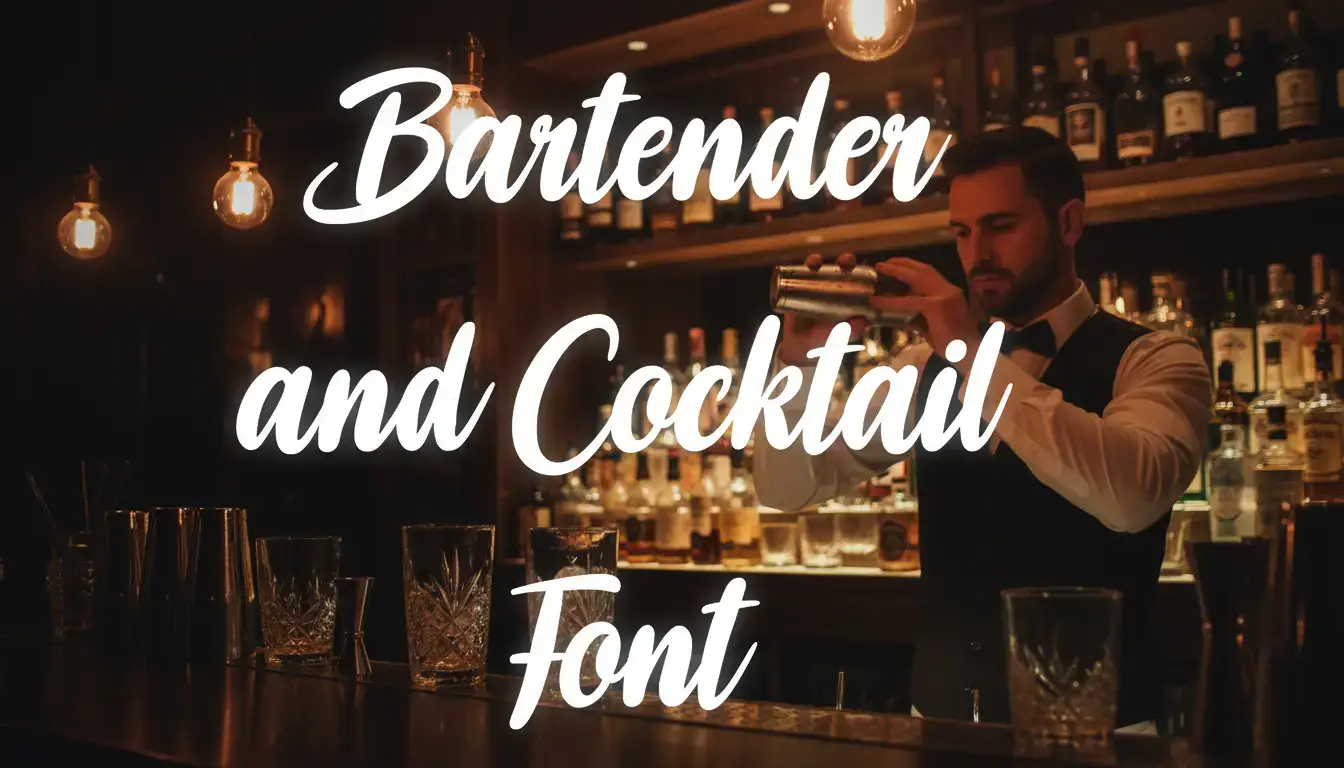
Bartender and Cocktail Font
Bartender and Cocktail
Bartender and Cocktail is a script font created by CAT.B. It has that hand-lettered, flowing feel people look for when regular type seems too stiff. You can download it for free and test it with your own words in the preview above.
- Designer: CAT.B
What You Can Type With Bartender and Cocktail
With complete upper and lowercase letters and all ten digits, Bartender and Cocktail is ready for real wording, not just a single headline. Common punctuation such as &, !, ? and @ is included as well. It also has the accented letters you need for Spanish, French, Portuguese and Italian.
Where Bartender and Cocktail Works Best
Bartender and Cocktail is a natural fit for wedding invitations, logos and signature-style headings. Script fonts read best in short bursts, so keep it to names, titles and one-line quotes. Skip all caps: script capitals are drawn to start a word, not to fill one.
Does Bartender and Cocktail support accented letters?
Yes. Bartender and Cocktail includes the accented letters needed for Spanish, French, Portuguese and Italian, so it works for more than just English.